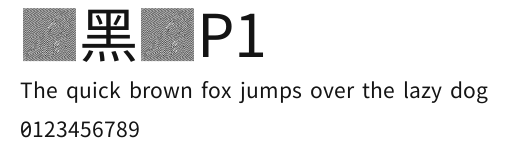
遍黑體P1 Preview
• Font Name: 遍黑體P1
• Designer: Fitzgerald P. Köeingsegg
• Manufacturer: Fitzgerald P. K. (Fitzgerald Yu / 蔽芪茢·茇䓮·蓲䒤菥)
About 遍黑體P1.ttf
遍黑體P1.ttf is a modern, elegant sans-serif font designed for ultimate readability and visual harmony. Perfect for branding, headlines, web design, and print materials.